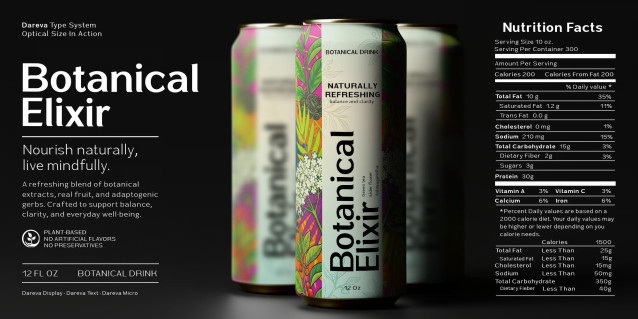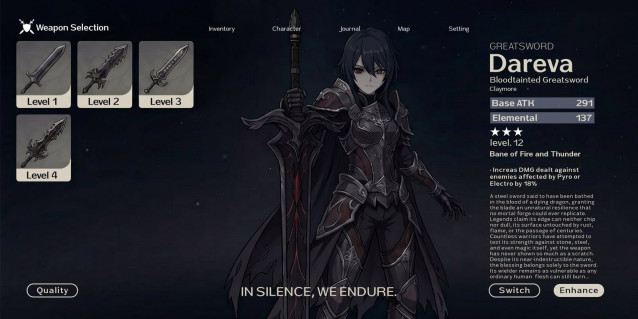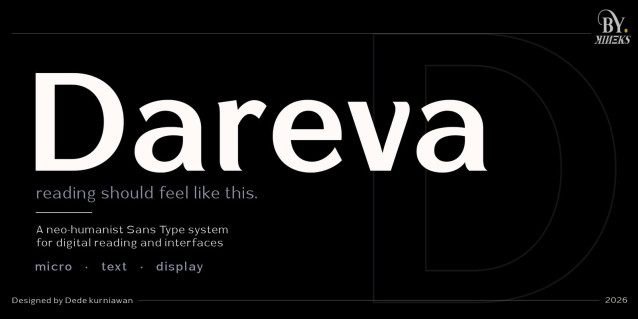
Dareva Font
Dareva Font is a neo-humanist sans type system designed for calm reading and digital clarity.
Built around three dedicated optical sizes—Micro, Text, and Display—Dareva adapts to different reading environments while maintaining a consistent visual voice. Each size is carefully refined to optimize spacing, proportions, contrast, and rhythm for its intended use.
The Micro styles are engineered for interfaces, labels, and dense information. The Text styles provide balanced proportions and comfortable reading in long-form content. The Display styles introduce refined contrast and expressive details for impactful headlines and large-scale typography.
With 36 styles ranging from Extra Light to Bold, plus matching Obliques, Dareva offers a versatile typographic system for digital products, editorial design, branding, dashboards, and user interfaces.
Designed with multilingual support and crafted for clarity, comfort, and consistency, Dareva helps reading feel quieter, smoother, and more human.